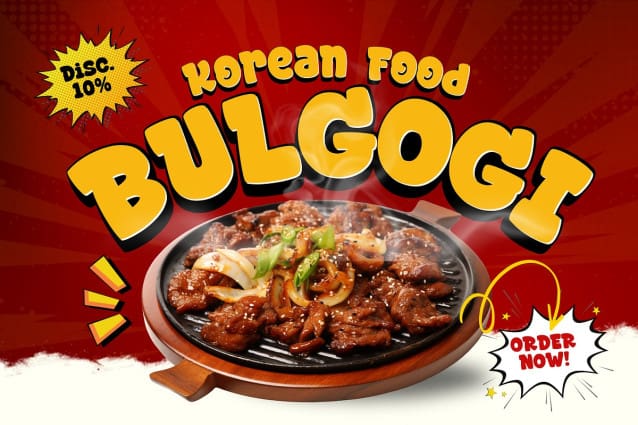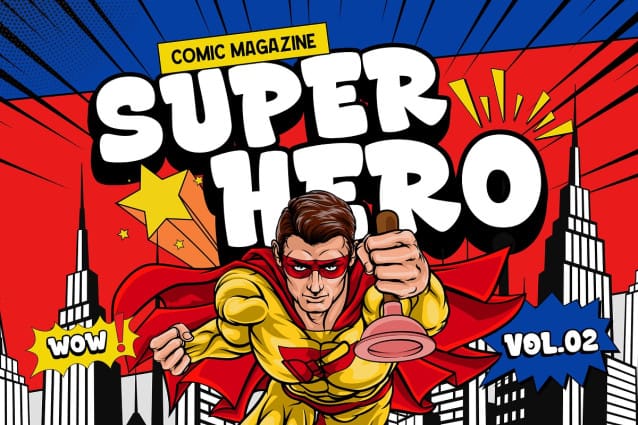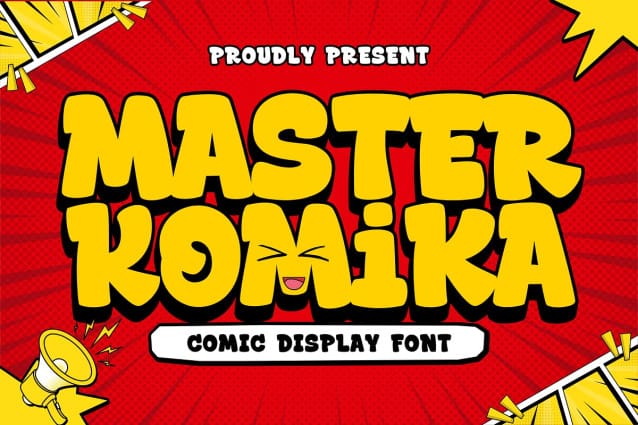
Master Komika Font
Master Komika Font is a playful and vibrant display comic font that brings fun and energy to your designs. Perfect for comics, kids’ projects, posters, and playful branding, it adds a cheerful and creative touch to any layout. Let MasterKomika spark joy in your creations!